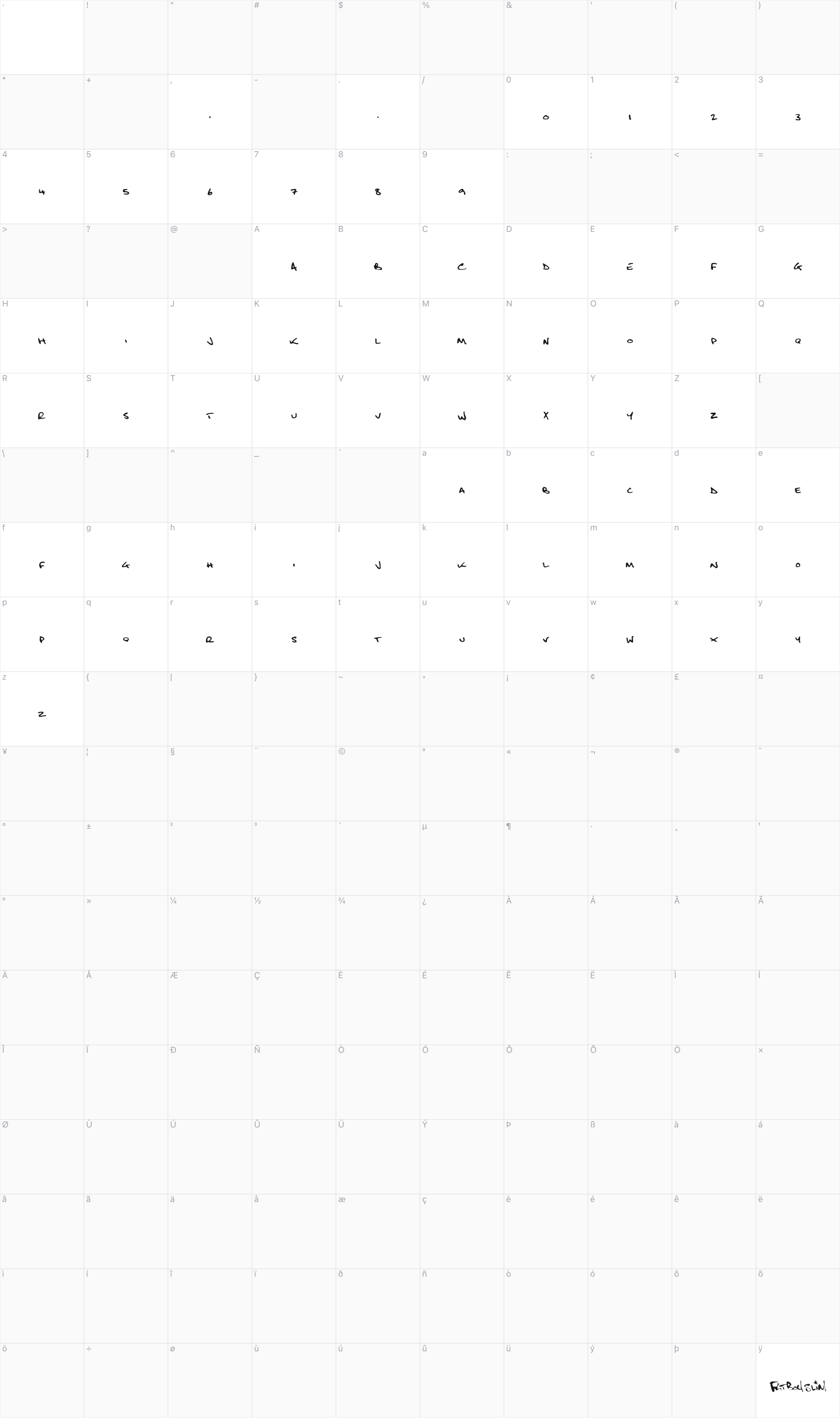
Fatboy Slim
Fatboy Slim is a bold, rounded handwritten face from Ænigma Fonts that reads like thick marker on a whiteboard, with chunky strokes and a loose, casual rhythm. The letterforms are playful without being childish, carrying enough weight to hold their own in headlines, posters, and informal branding. It's the kind of type that feels off-the-cuff and approachable, with just enough wobble to stay human.